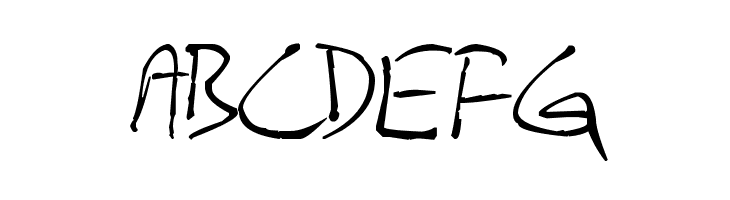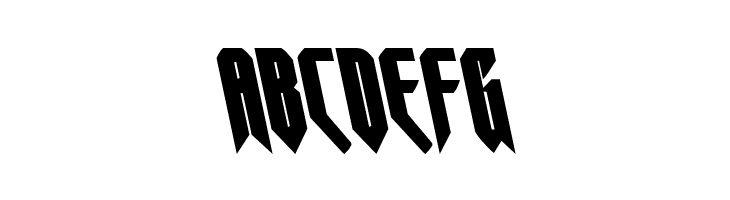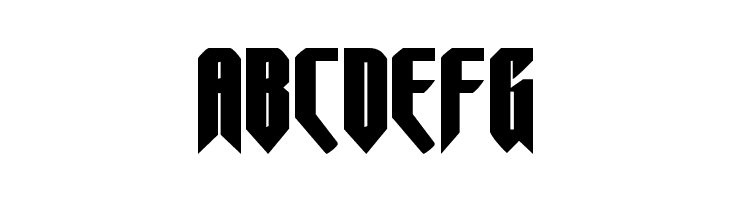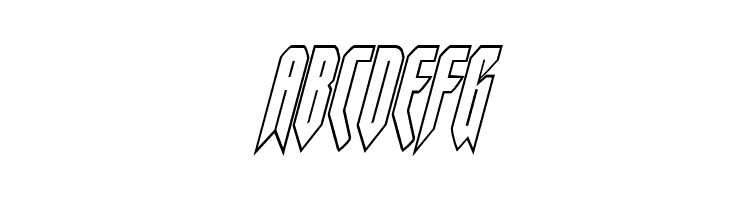
FFF Tusj Bold Font
A bold, hand-drawn font with a sketch-like, artistic style.
Milk Run Font
A playful, rounded font with a hand-drawn, friendly appearance.
Belligerent Madness Font
A bold, brush-style font with dynamic, hand-drawn strokes.
BitLow Font
A pixelated, retro-style font with a digital, arcade game aesthetic.
F'Earth Font
A playful, bold font with quirky, uneven characters and a lively style.
Ambages Font
A decorative and geometric font with intricate, maze-like designs.
Gomo Font
A bold, playful handwritten font with a casual and approachable style.
Magnus Handwriting Font
A dynamic and expressive handwritten font with fluid, irregular strokes.
Spellstone Font
A playful and whimsical font with rounded, slightly irregular letterforms.
BitHigh Font
A pixelated, blocky font with a retro digital aesthetic.
Gomo Regular Font
A bold, hand-drawn font with a playful and artistic style.
Deco Card Font
A bold, Art Deco-inspired font with geometric shapes and high contrast.
4Function Liberal Font
A geometric, angular font with a digital, futuristic style.
supercar cyr Font
A bold, pixelated typeface with a modern, digital aesthetic.
MildHandJive Font
A playful, handwritten font with smooth, rounded strokes and a casual, friendly style.
Memo to Self Font
A playful, handwritten font with a friendly and casual style.
Opus Magnus Regular Font
A bold, angular font with a geometric and modern design.
Opus Magnus Expanded Font
A bold, geometric font with sharp angles and a futuristic aesthetic.
4Function Strict Font
A digital, segmented font with a futuristic, technological style.
Opus Magnus Rotalic Font